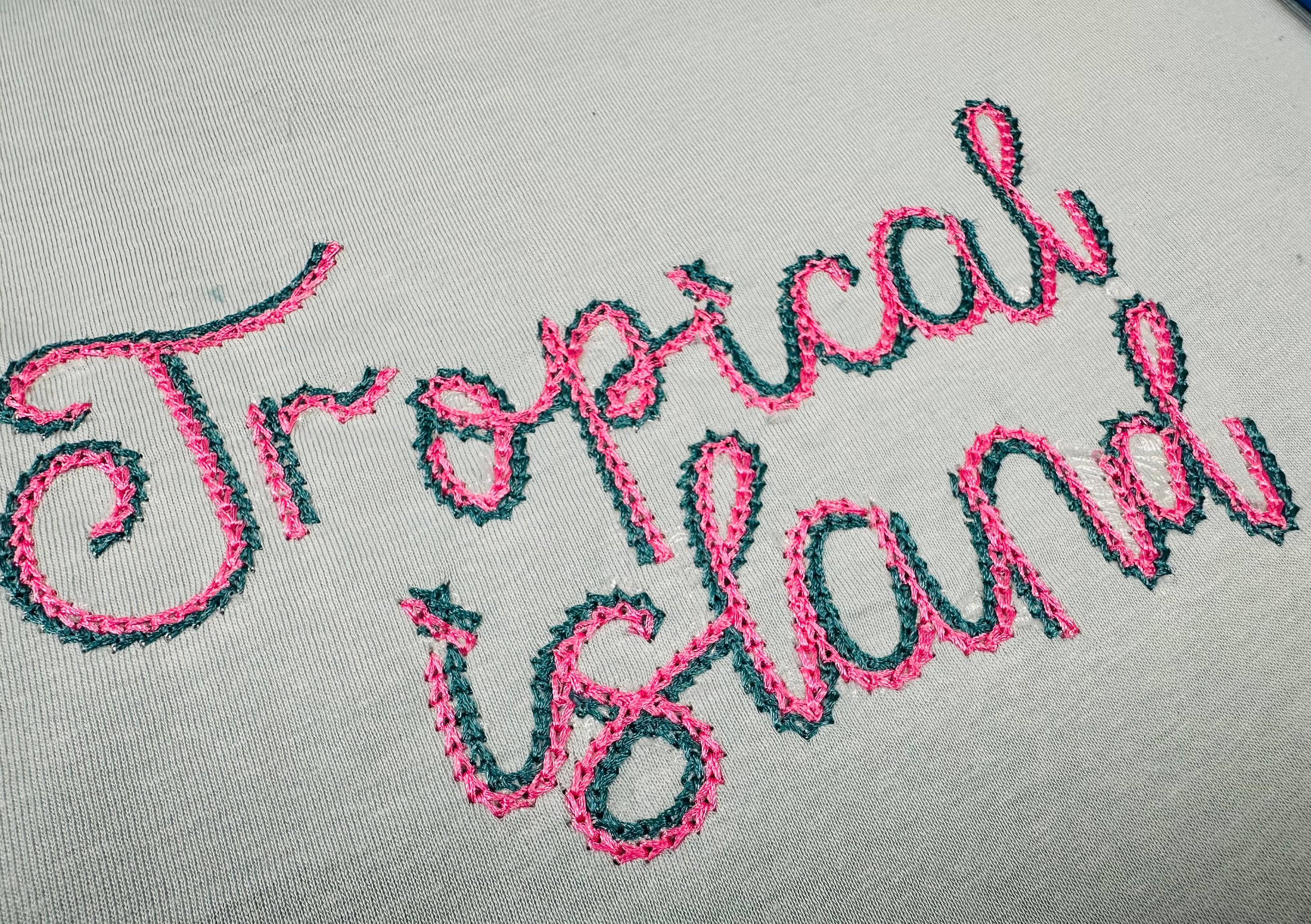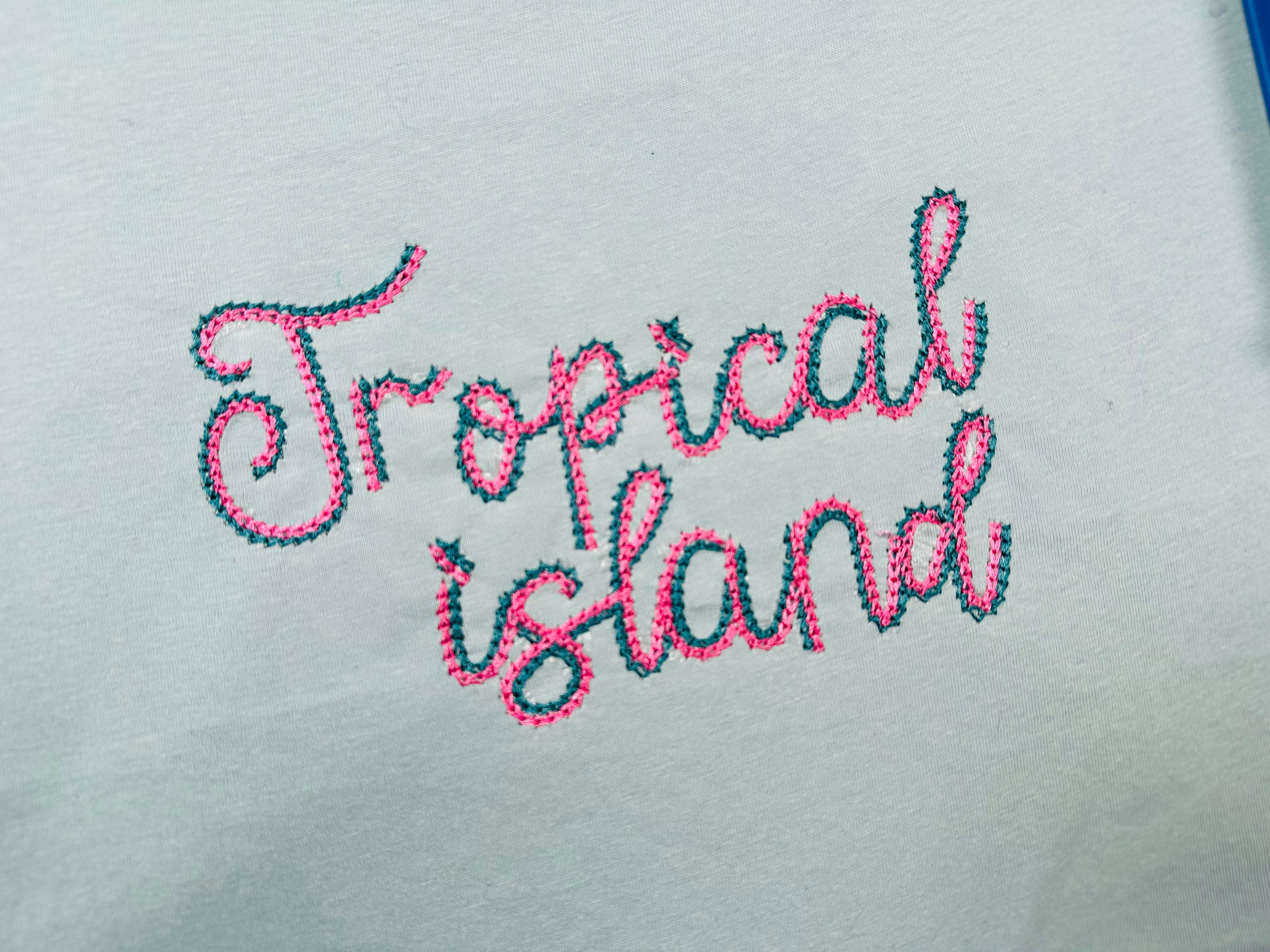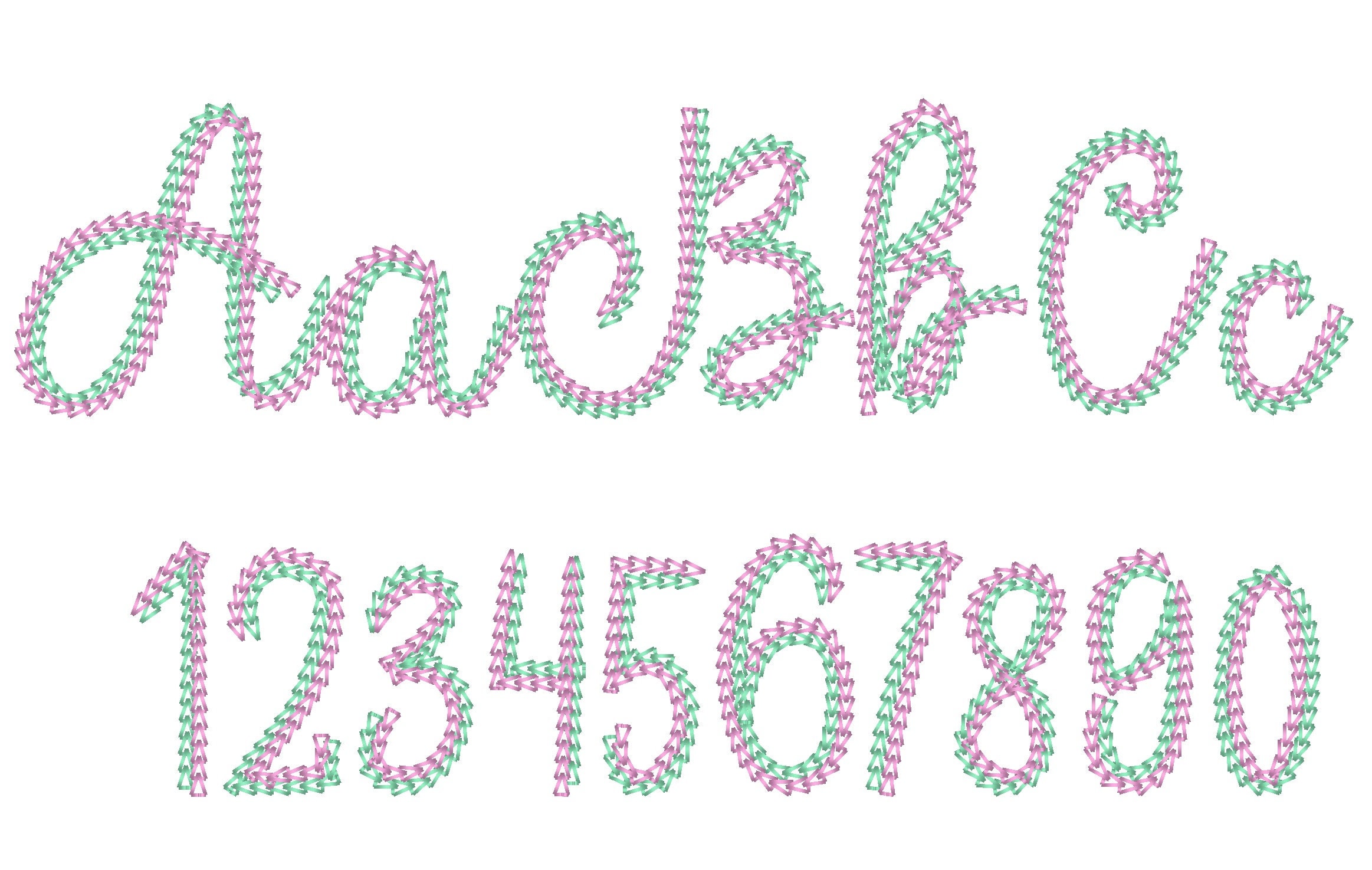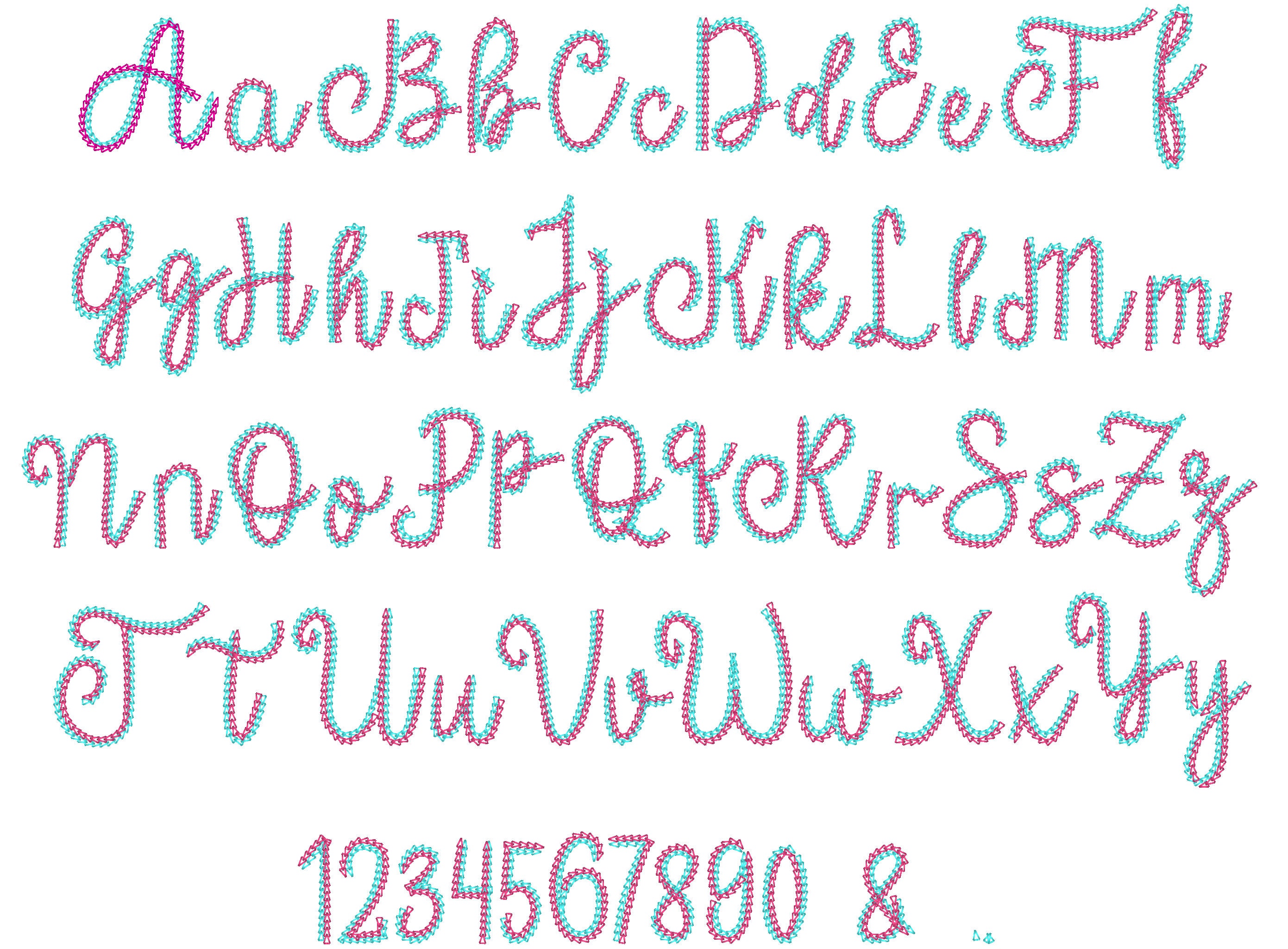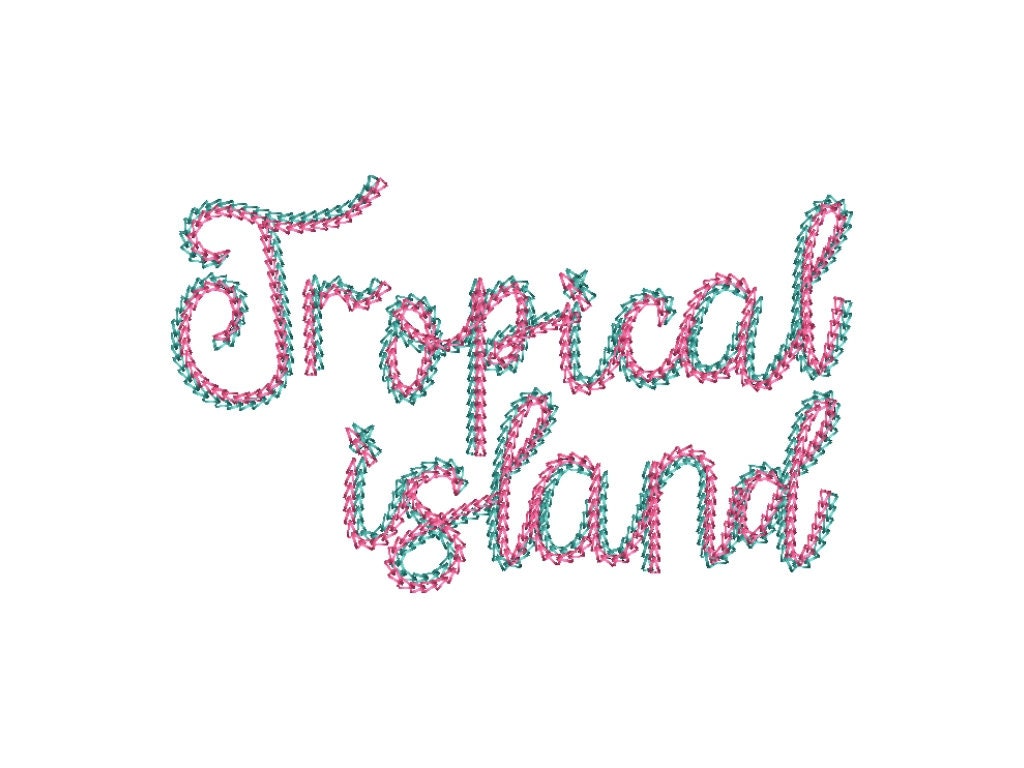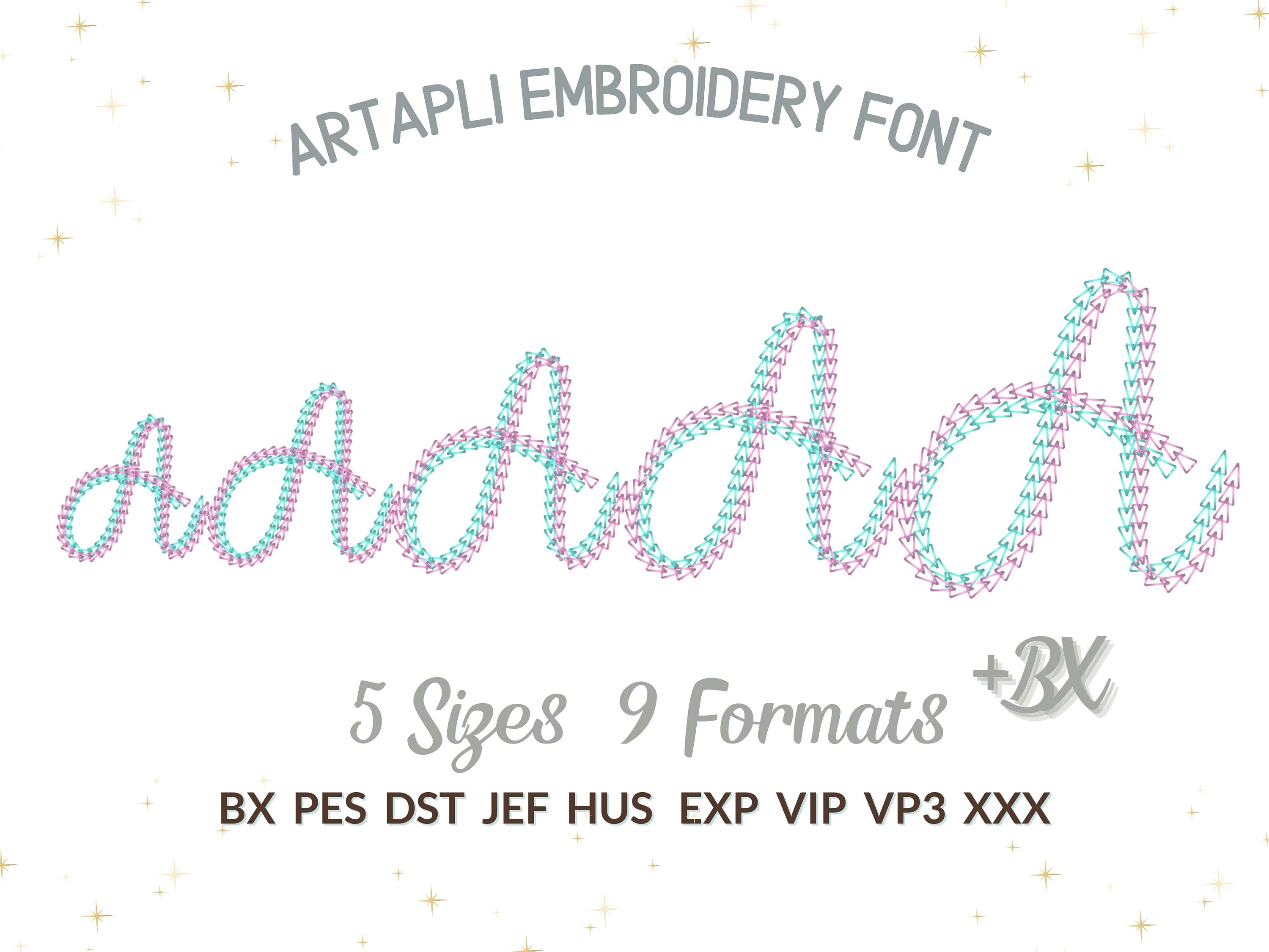
Double light stitch Chain FONT machine embroidery designs in assorted mini sizes alphabet letters playful kids link chain name, BX included
Whole alphabet A-Z uppercase and lowercase letters.
Cute font! Stitched out well.
Stitched out very well, but I didn't love some of the letters. The capital C came up too high at the middle and it was difficult to make it look right with the name.